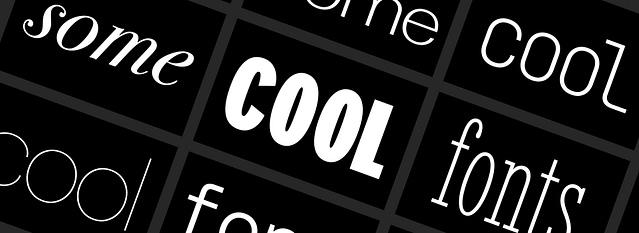
Best Google Fonts for Headings in 2026 (And What to Pair Them With)
A collage of black rectangles on Hook Agency's website features an array of fonts from Google Fonts, including cursive, serif, and bold serif styles. "COOL" stands out prominently in bold white letters at the center, surrounded by other visually striking font headings.
The best Google Fonts for headings are not always the same fonts you should use for body copy.
Headlines need contrast. Authority. Personality. Body text needs clarity and endurance. When those two roles blur, design suffers, no matter how good the content is.
Google Fonts makes it easy to choose from hundreds of free typefaces, but that doesn’t mean they’re all suitable for professional design. In fact, many popular Google Fonts look great in isolation and fall apart once you put them into real layouts across desktop and mobile.
This guide focuses on Google Fonts that work for headlines in 2026. These fonts look polished, load fast, and hold up across modern screen sizes. You’ll also learn how to pair them properly, avoid common mistakes, and choose fonts that match your brand’s tone.
The Best Google Fonts for Headlines (2026 Picks)
These fonts balance clarity, personality, and flexibility. They’re widely used, well-supported, and proven in real-world design, not just font previews.
Best Google Fonts for Headings - Crimson Text Semibold Italic
Crimson Text Semibold Italic
Best Google Fonts for Headings - Raleway Light
Raleway Light
Best Google Fonts for Headings - Playfair Display Black italic
Playfair Display
Oswald Bold
Droid Serif Bold
Droid Serif (700 weight)
Arvo Bold - Best Google Fonts for Headlines in Web Design
Alegreya Bold - Best Google Fonts for H1, H2, H3
Displaying "BEBAS NEUE" in bold, capital letters makes it an ideal choice for headings. This evenly spaced and bold font is one of the top options available on Google Fonts.
Bebas Neue
A bold sans-serif font with an all-caps style that’s ideal for impactful, modern headers.
The image features "Montserrat Bold" in its distinctive bold style, perfect for headings. This popular Google Fonts selection is displayed in black on a white background.
Montserrat
A geometric sans-serif font with a clean and modern appearance. Excellent for professional headers.
Display "ANTON REGULAR" in bold, uppercase letters on a white background for impactful headings. Available on Google Fonts.
Anton
A sans-serif display font with thick strokes and a bold, authoritative look. Perfect for strong, eye-catching headlines.
Google Fonts for Headlines: Everything You Need to Know
When choosing fonts for your headlines, you’re not just picking letters, you’re picking the vibe for your entire design. Google Fonts offers free, high-quality options that look stunning and load fast. Here’s what to know so you can make the most of them.
Why Headline Fonts Matter More Than Ever in 2026
Your headline font does more than decorate text. It sets expectations.
In 2026, users skim faster, screens vary more, and attention spans are tighter. Headings need to do heavy lifting quickly. The right font helps your content feel credible, intentional, and worth reading before a single sentence is absorbed.
A strong headline font should:
• Be instantly legible across devices
• Create clear hierarchy from body copy
• Match the emotional tone of your brand
• Scale cleanly on mobile and large displays
When headline fonts are chosen poorly, even high-quality content feels unpolished.
How to Use Google Fonts on Your Website
Adding Google Fonts is easy. No coding degree required.
Here’s how:
1. Go to Google Fonts.
2. Select your font (like Playfair Display or Montserrat).
3. Copy the embed link provided.
4. Paste it into the <head> section of your website.
Want more control? Use CSS:
font-family: ‘Playfair Display’, serif; font-weight: 700;
Boom—your site just got classier.
Pairing Headline and Body Fonts
Contrast is key. Your headline font should pop, but your body font should be easy to read.
Great combos:
• Playfair Display (headline) + Lora (body)
• Anton (headline) + Roboto (body)
• Montserrat (headline) + Open Sans (body)
Avoid pairing fonts that are too similar. For example, using two bold sans-serifs can make your design feel heavy and hard to follow.
Tips for Choosing the Best Google Headline Font
Not sure where to start? Keep these in mind:
• Audience matters: Professional? Go with a serif like Merriweather. Modern and playful? Bebas Neue is a winner.